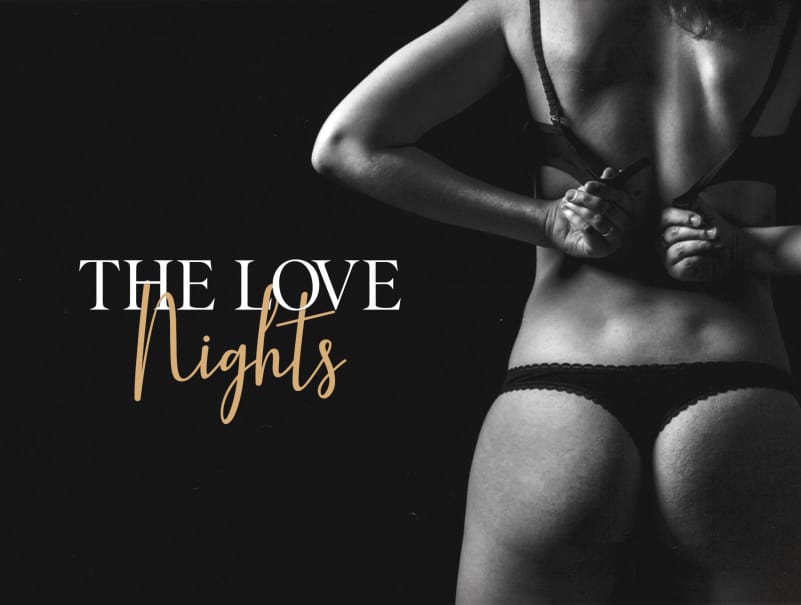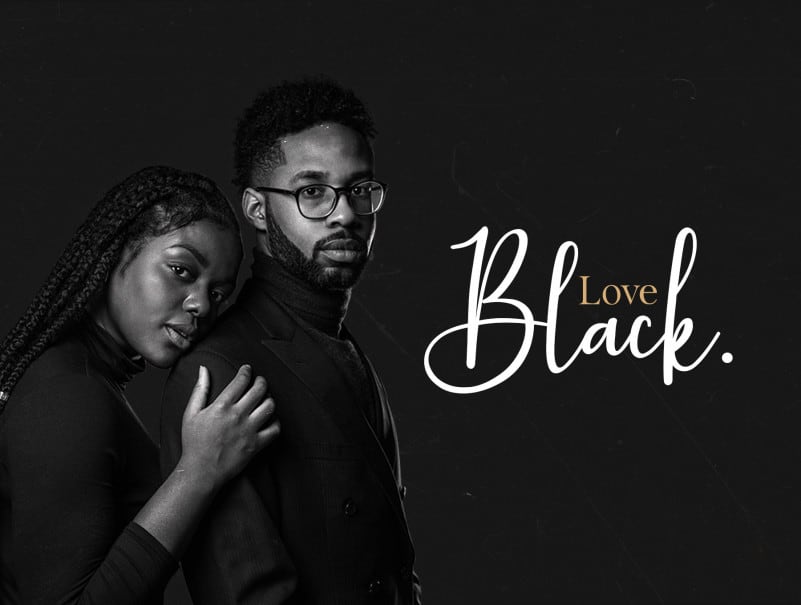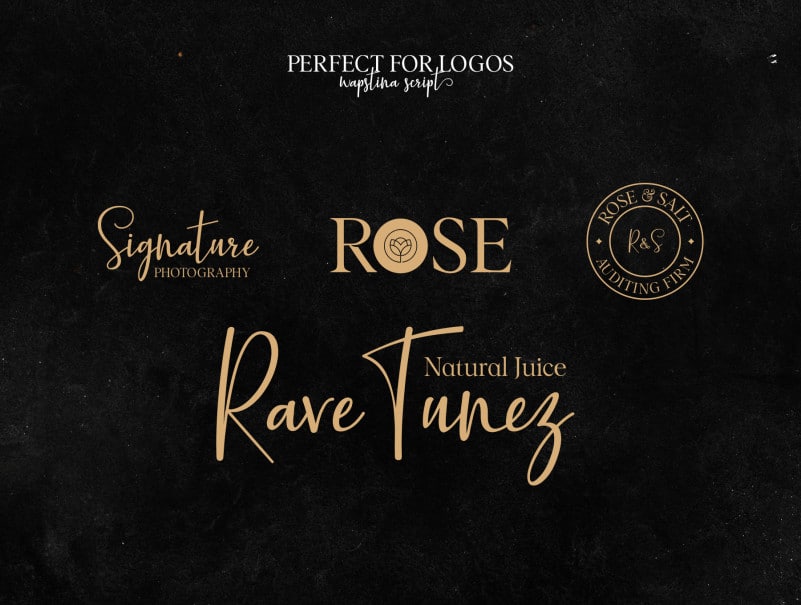
Wapstina Love Font Duo is a modern duo font that combines stylish calligraphy with a classic serif font. It comes with one-of-a-kind ligature, making it an ideal font for your blog, logo, social media, branding, poster, quotes, wedding cards etc.